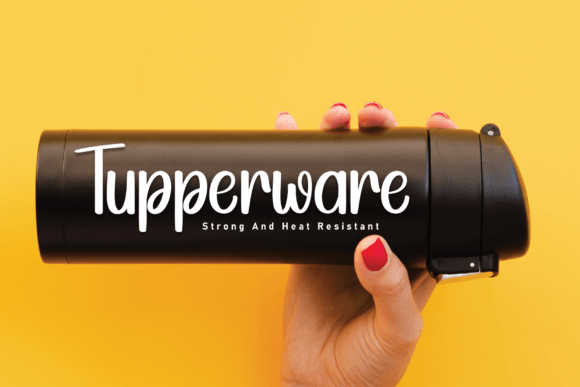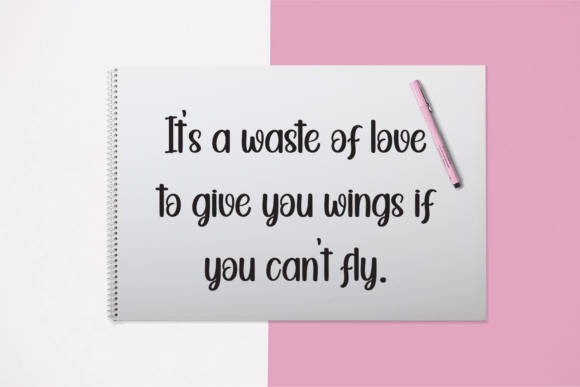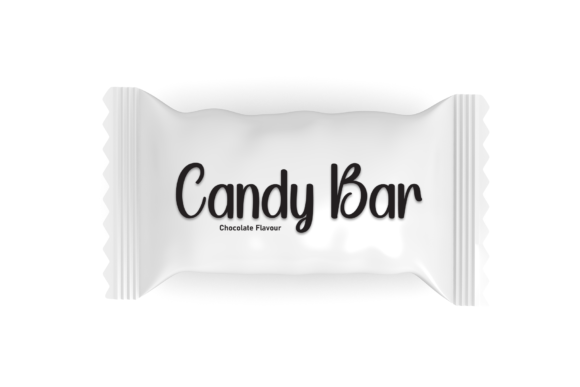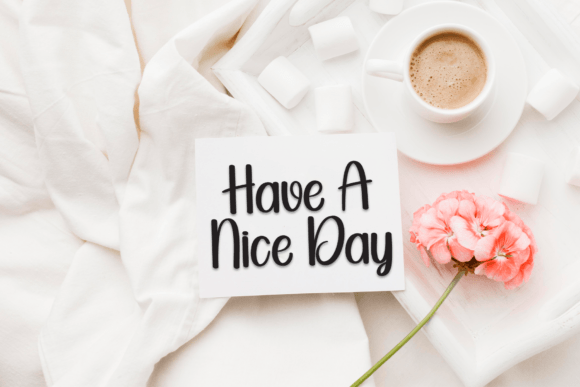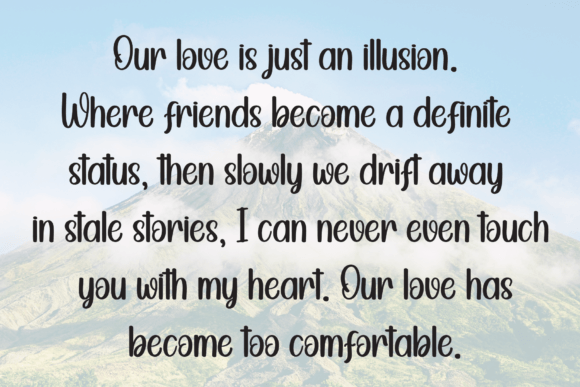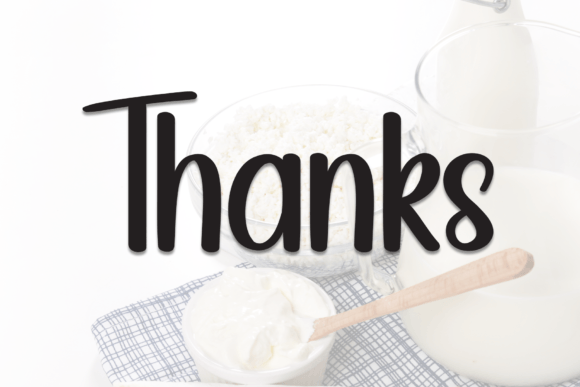
Introducing Butter Font: The Sweet and Friendly Handwritten Display Font
Are you looking for a font that can add a touch of sweetness and friendliness to your designs? Look no further than Butter Font! This beautiful handwritten display font is perfect for creating fun and playful designs that are sure to capture the attention of your audience. In this article, we’ll take a closer look at Butter Font, its features, and how you can use it to elevate your designs.
What is Butter Font?
Butter Font is a sweet and friendly handwritten display font that is designed to bring a touch of whimsy and fun to your designs. With its cute and playful style, this font is ideal for writing wedding invitations, cards, or any other design that might need a fun touch. Whether you’re a designer, crafter, or DIY enthusiast, Butter Font is a great addition to your font collection.
Features of Butter Font
So, what makes Butter Font so special? Here are some of its key features:
- Handwritten style: Butter Font has a beautiful handwritten style that gives it a personal and unique touch.
- Cute and fun: This font is designed to be playful and fun, making it perfect for designs that need a touch of whimsy.
- Display font: Butter Font is a display font, which means it’s designed to be used at larger sizes, making it perfect for headings and titles.
- Easy to read: Despite its playful style, Butter Font is easy to read, making it perfect for use in a variety of designs.
Uses for Butter Font
So, how can you use Butter Font in your designs? Here are some ideas to get you started:
- Wedding invitations: Butter Font is perfect for writing beautiful and unique wedding invitations that will set the tone for the big day.
- Cards and stationery: This font is also great for creating fun and playful cards and stationery for special occasions.
- DIY projects: Butter Font is a great addition to any DIY project, from crafting to scrapbooking.
- Digital designs: This font can also be used in digital designs, such as social media graphics, blog posts, and more.
Tips for Using Butter Font
Here are some tips for getting the most out of Butter Font:
- Use it sparingly: Because Butter Font is a display font, it’s best to use it sparingly to add emphasis to your designs.
- Pair it with other fonts: Butter Font pairs well with other fonts, such as sans-serif fonts, to create a unique and interesting contrast.
- Experiment with colors: This font looks great in a variety of colors, so don’t be afraid to experiment and find the perfect color for your design.
In conclusion, Butter Font is a sweet and friendly handwritten display font that is perfect for adding a touch of fun and whimsy to your designs. With its cute and playful style, this font is ideal for writing wedding invitations, cards, or any other design that might need a fun touch. Whether you’re a designer, crafter, or DIY enthusiast, Butter Font is a great addition to your font collection.